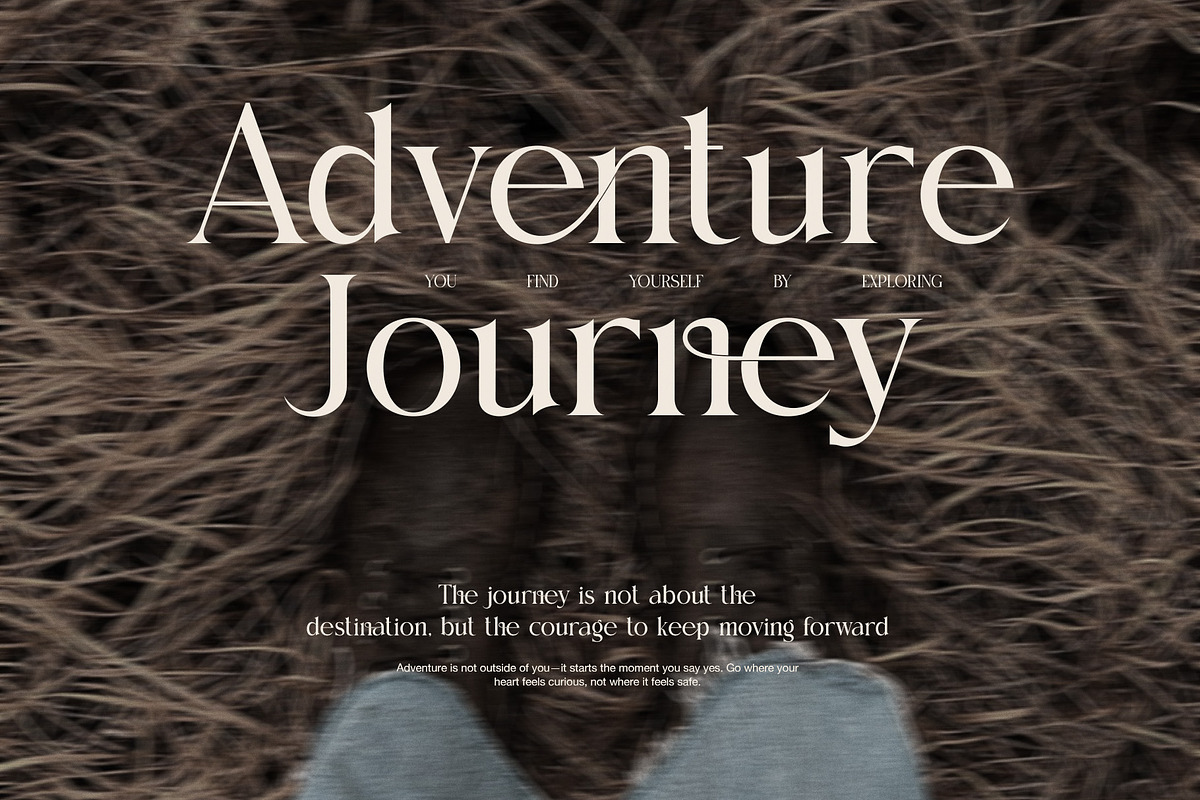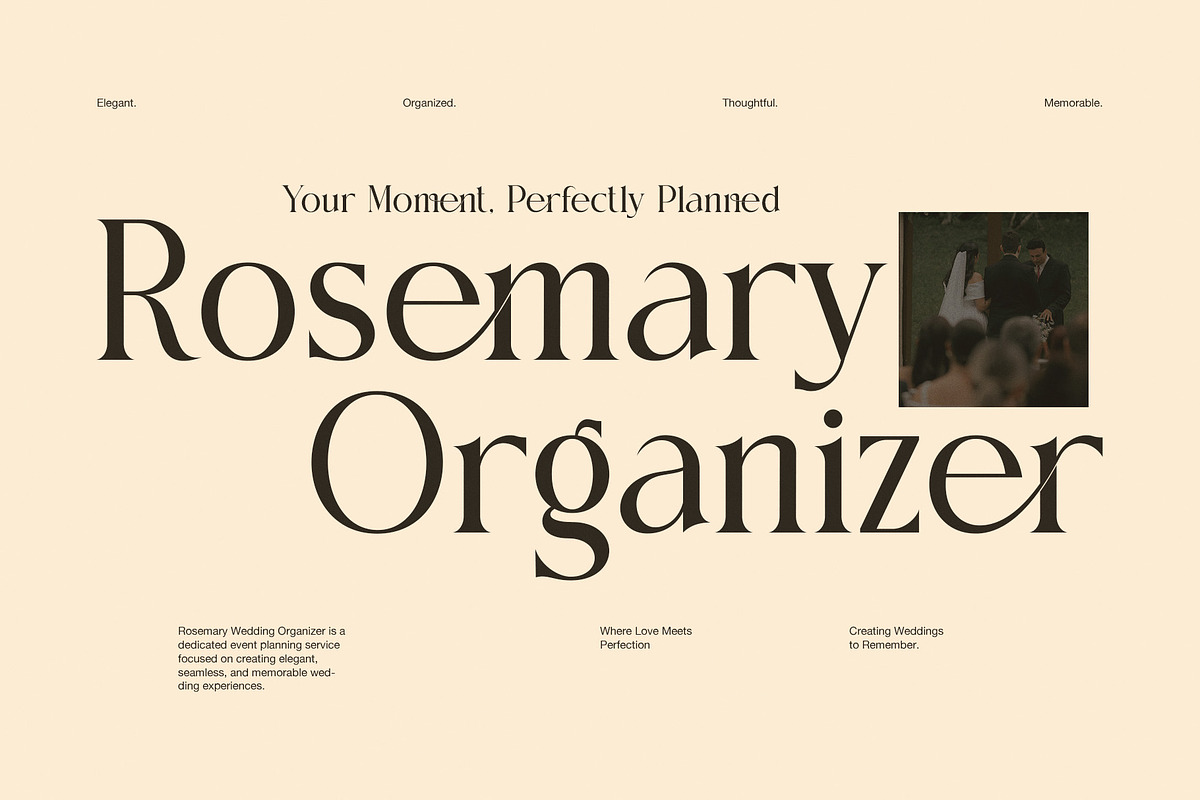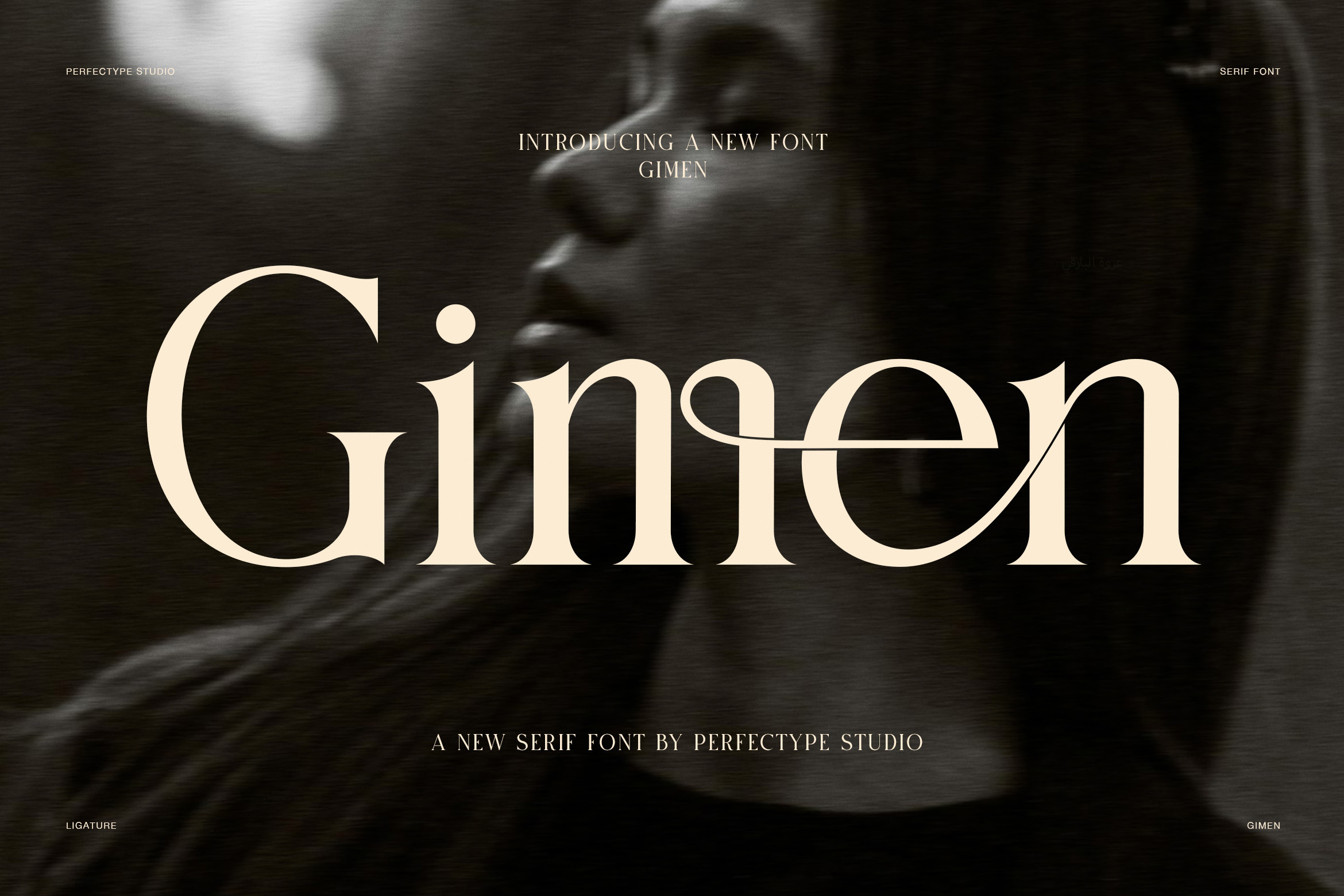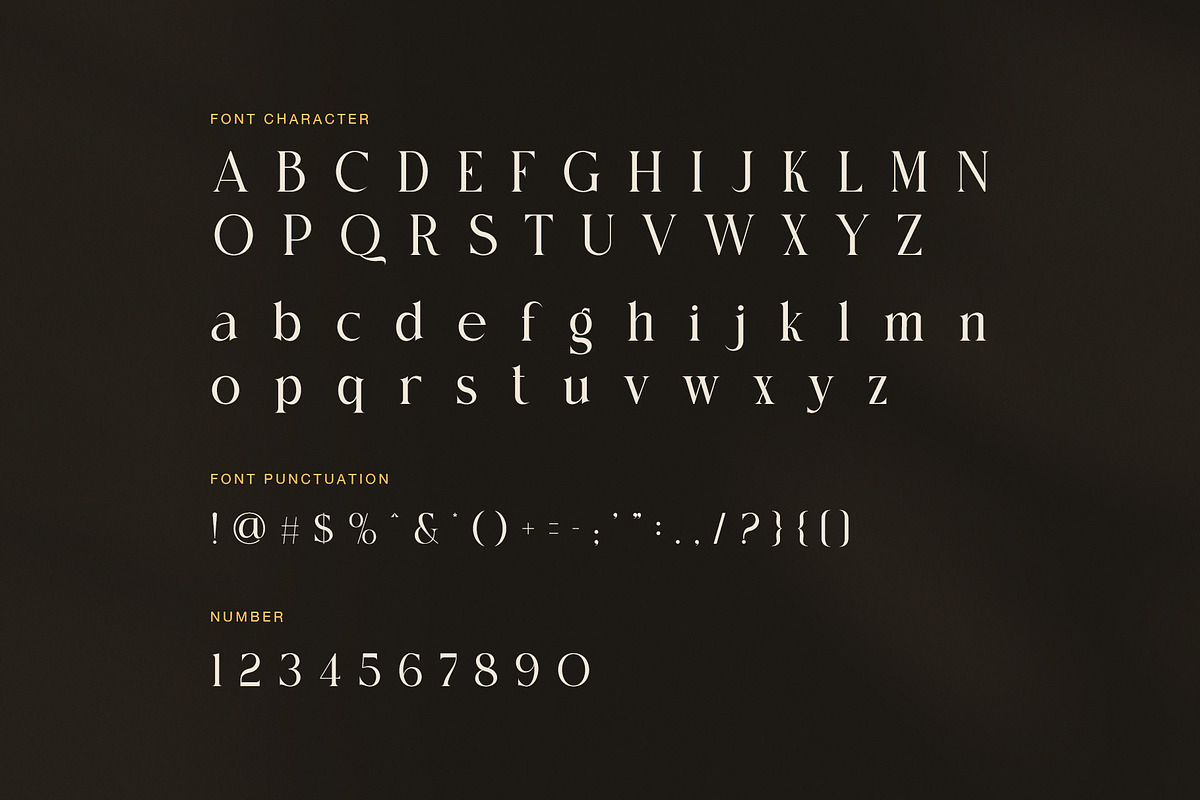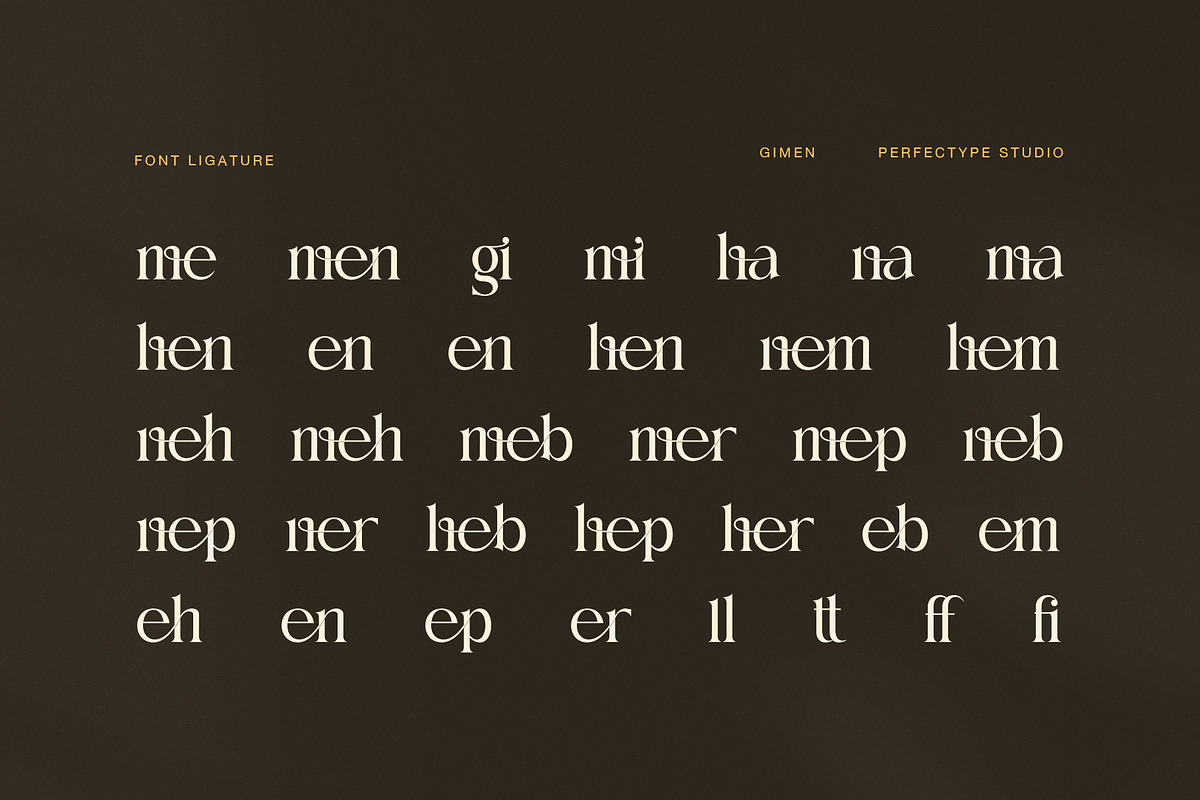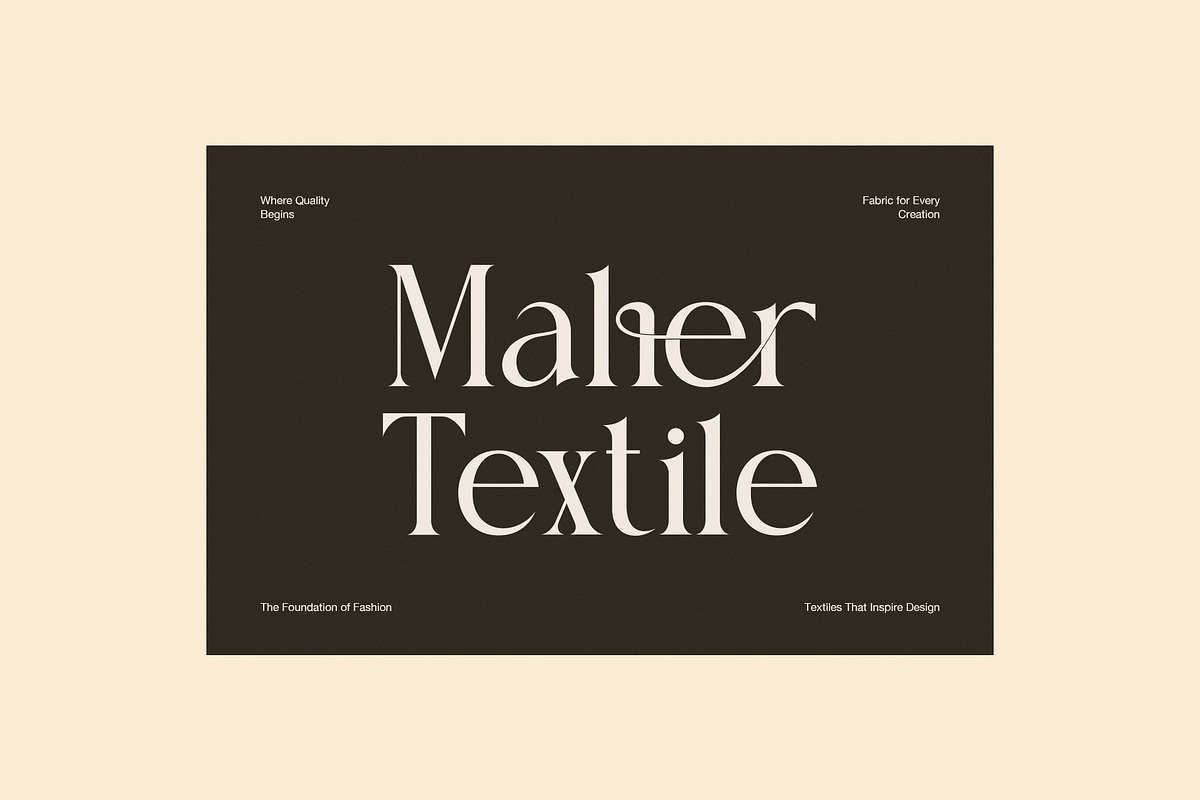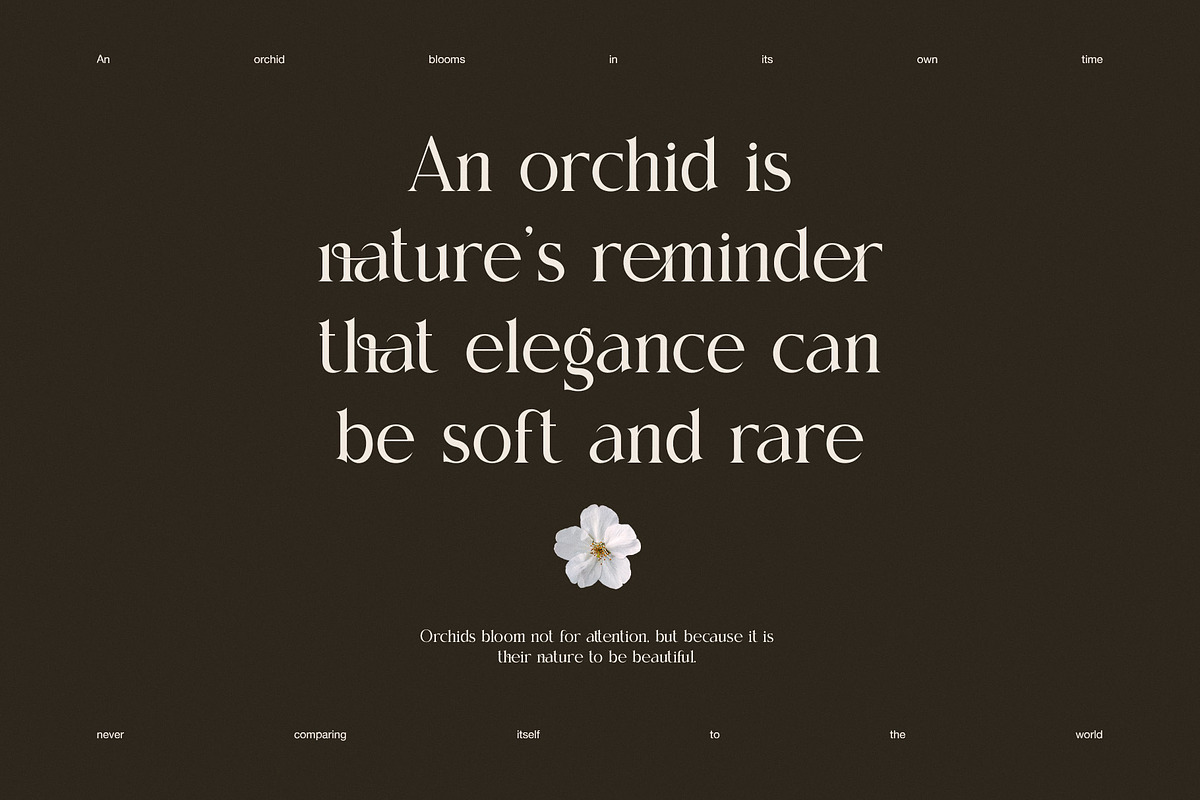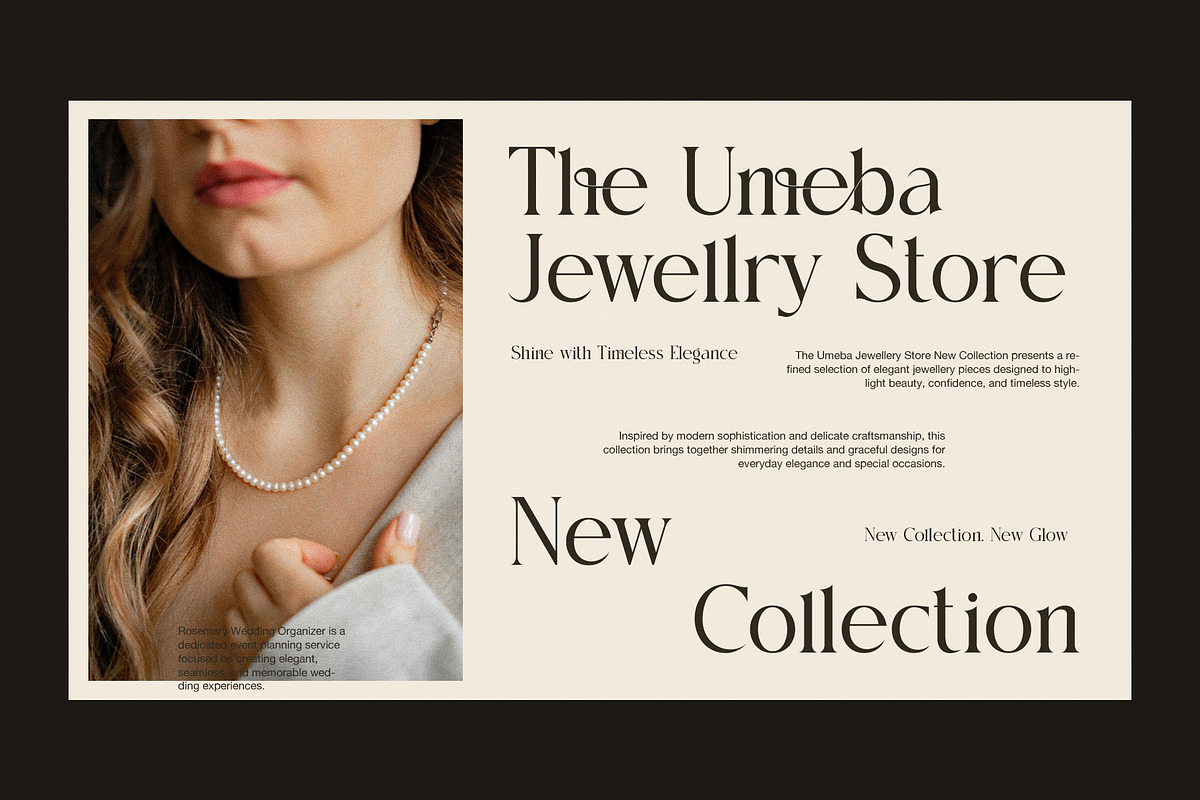
Gimen Elegant Ligature Serif Font
Gimen is an Elegant Ligature Serif Font created for designers who want refined typography with a modern luxury feel. Every character is carefully balanced to deliver clean proportions, sophisticated contrast, and seamless ligatures that make words flow naturally. As a result, this font creates striking headlines while preserving excellent readability across premium design projects.
Inspired by contemporary editorial design, luxury branding, and timeless fashion typography, Gimen combines classic serif elegance with artistic ligature details. Instead of relying on decorative swashes, it uses thoughtfully crafted letter connections that give logos, headlines, and brand names a polished and exclusive appearance. Therefore, every composition feels unique without becoming difficult to read.
Moreover, Gimen performs beautifully across both print and digital media. Whether you are building a luxury fashion identity, designing cosmetic packaging, or creating editorial layouts, the font adds confidence and sophistication. Its smooth curves, balanced serifs, and elegant ligatures help transform ordinary typography into memorable visual branding.
Because versatility matters, Gimen fits a wide range of creative industries. It works perfectly for jewelry brands, wedding stationery, boutique logos, beauty products, perfume packaging, hospitality branding, restaurants, lifestyle magazines, interior design studios, and premium social media campaigns. Furthermore, its elegant structure makes every title look clean, modern, and professional.
Unlike many decorative serif fonts, Gimen maintains a minimalist personality while introducing beautiful ligature combinations. Consequently, designers can create premium branding without adding unnecessary visual complexity. The carefully spaced characters also improve harmony across both large headlines and medium-sized typography, making the font practical for everyday creative work.
Luxury branding
Fashion editorials
Elegant logos
Jewelry brands
Wedding invitations
Beauty packaging
Cosmetic branding
Perfume labels
Boutique identities
Editorial magazines
Hotel branding
Restaurant menus
Interior design studios
Product packaging
Premium social media graphics
In addition, Gimen includes professionally designed ligatures that automatically enhance selected letter combinations. This feature creates a custom lettering effect while keeping your workflow simple and efficient. As a result, every design appears more refined and distinctive.
Whether you are creating a premium visual identity or refreshing an established brand, Gimen offers timeless elegance with contemporary precision. Its graceful serif construction, refined ligatures, and balanced letterforms provide the flexibility needed for luxury branding, editorial design, packaging, advertising, and creative typography that leaves a lasting impression.